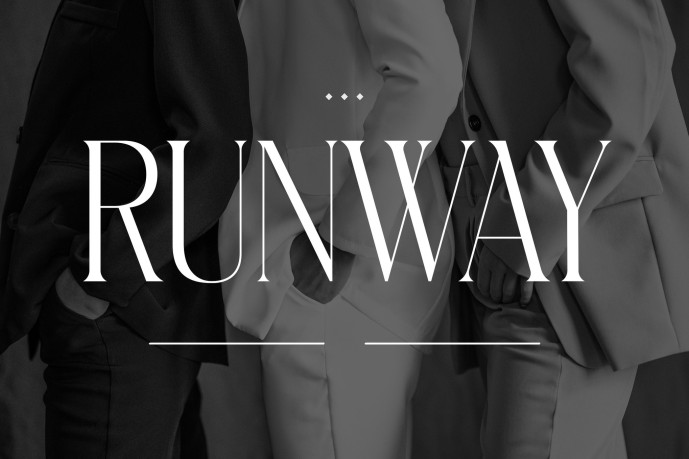
Runway Font
Runway Font is an elegant editorial display typeface crafted for fashion branding, lifestyle campaigns, and sophisticated visual storytelling. Featuring high-contrast strokes, elongated proportions, refined curves, and delicate terminals, it creates a polished and expressive appearance that feels modern yet timeless.
Inspired by fashion editorials, city culture, and contemporary branding, Runway delivers a distinctive visual rhythm that naturally elevates headlines and brand identities. Its graceful structure offers strong visual impact while maintaining clarity, making it ideal for branding, packaging, magazine layouts, social media campaigns, and promotional materials. Whether showcased on shopping bags, lookbooks, posters, or digital advertisements, Runway communicates confidence, creativity, and refined style.
Runway helps designers create branding that feels aspirational, contemporary, and memorable. The elegant high-contrast structure instantly attracts attention while preserving a clean and sophisticated aesthetic. Perfect for branding projects, editorial layouts, fashion campaigns, beauty products, lifestyle businesses, posters, social media content, packaging design, and creative marketing materials, Runway transforms simple typography into a compelling visual statement. It is ideal for brands seeking distinction, style, and strong market presence.